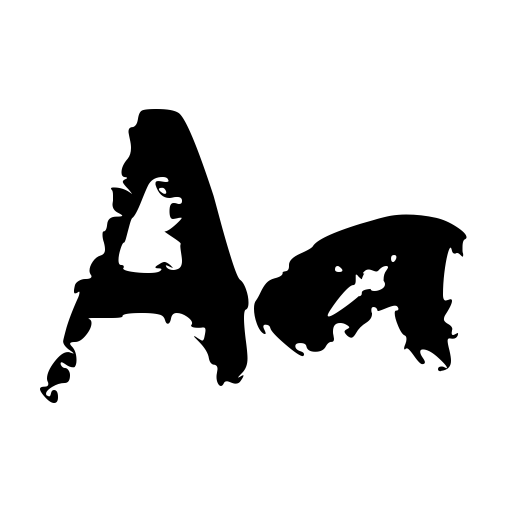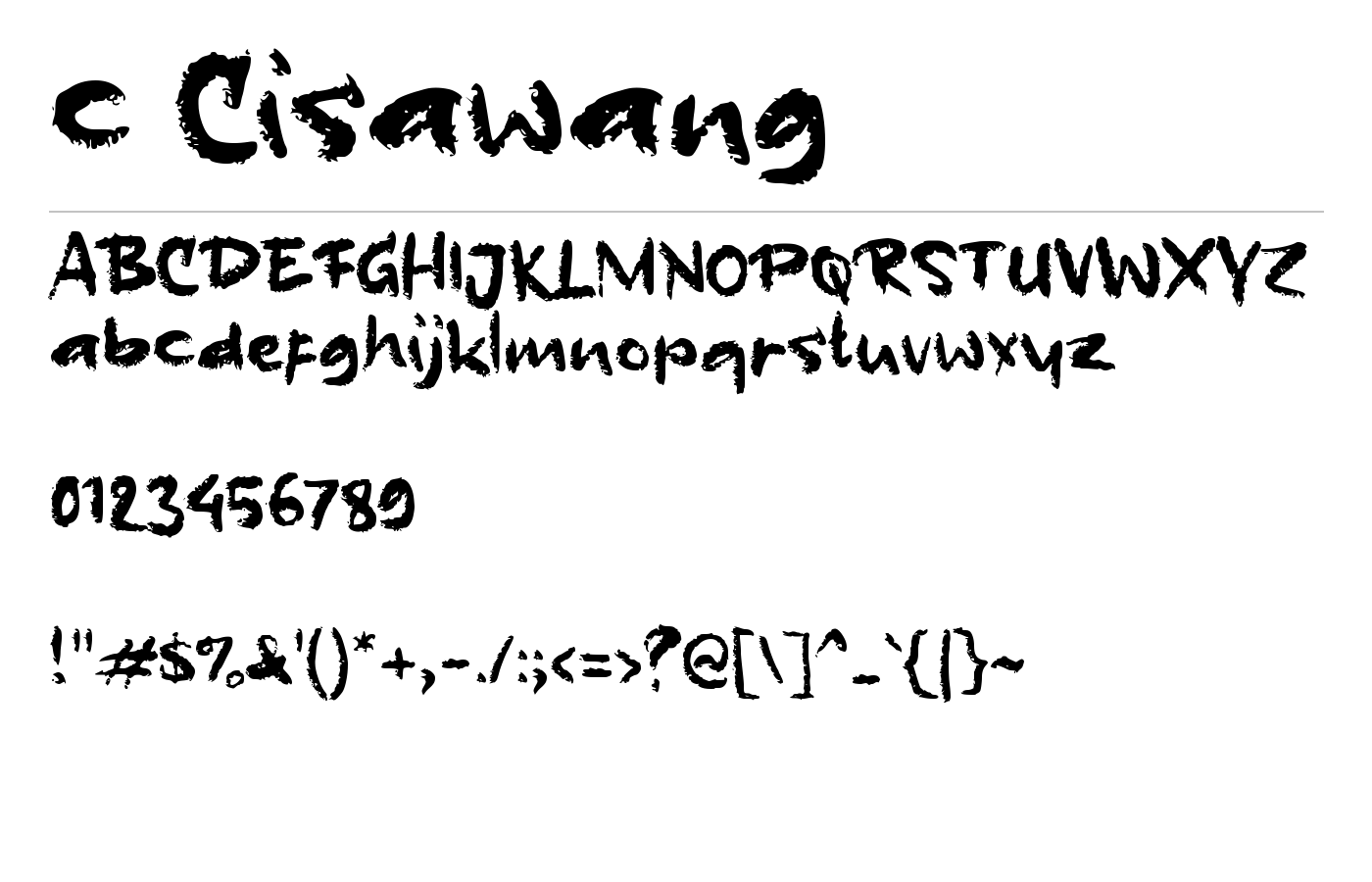
Cisawang is a bold, hand-drawn sans serif font with a rough, textured appearance that feels energetic and expressive. Its irregular strokes and playful forms give it a casual, artistic vibe ideal for creative projects, posters, and branding that seek a dynamic, handcrafted look. This font works well when you want to add personality and a sense of authenticity to your designs.
c Cisawang Font